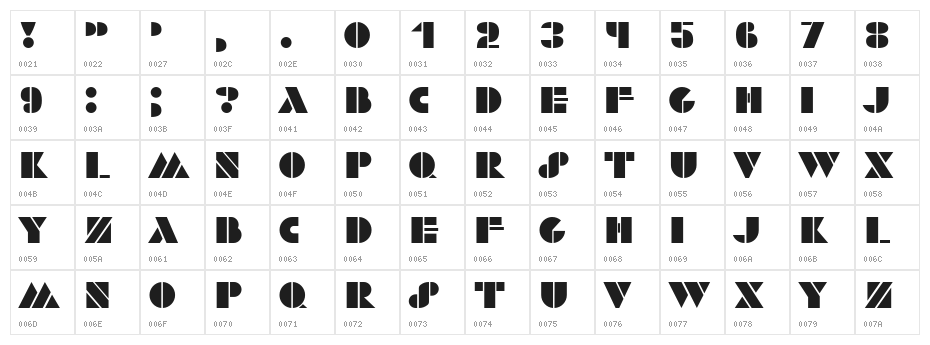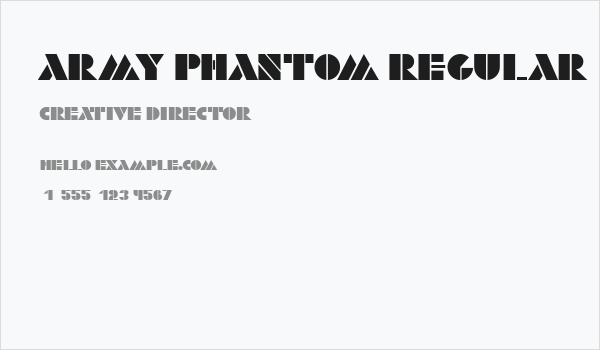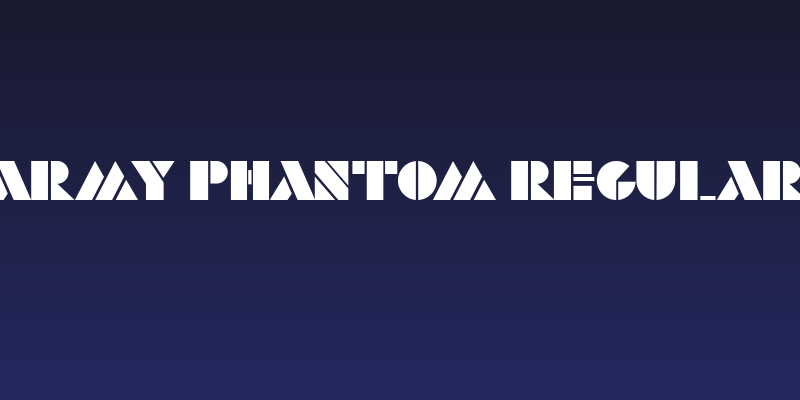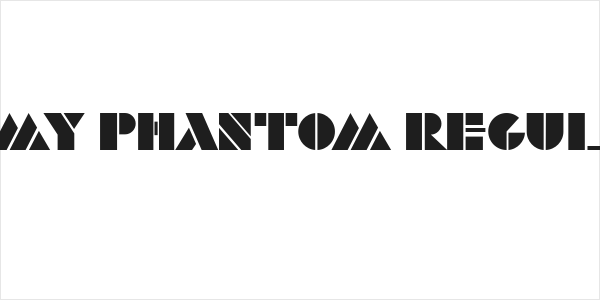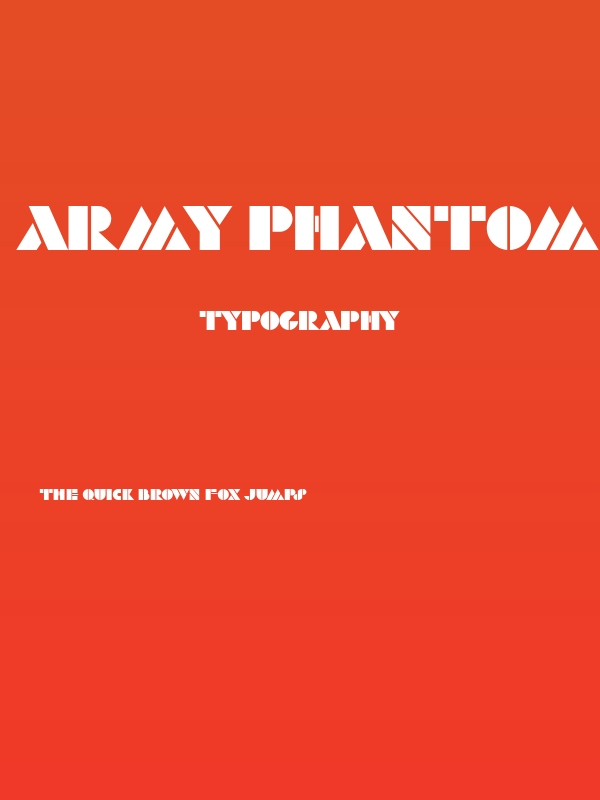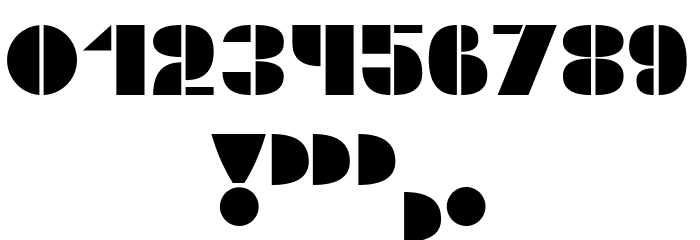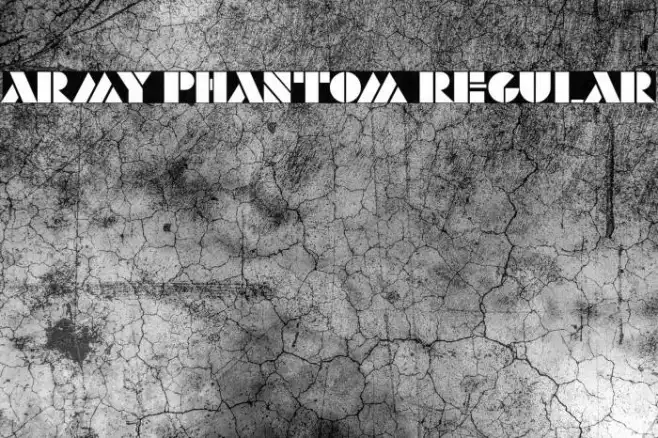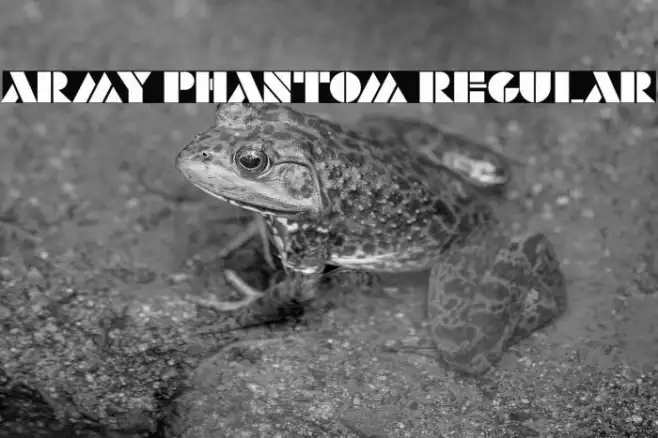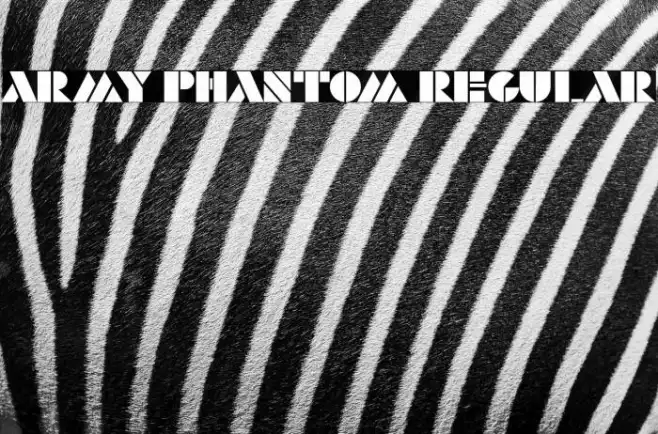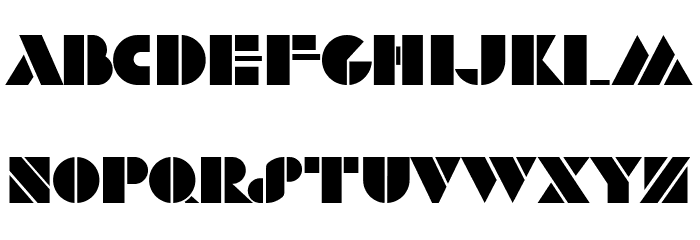
Army Phantom Regular Font
Army Phantom Regular Description
This font features a bold, geometric design with a distinct stencil-like appearance. Each character is composed of solid, angular shapes that create a sense of strength and modernity. The uppercase letters are particularly striking, with sharp edges and a uniform height that gives them a cohesive look. The numbers and special characters maintain this bold aesthetic, ensuring consistency across all elements. The font's unique style makes it ideal for projects that require a strong visual impact.
| Proposed Projects | Ideal for military-themed designs, posters, branding, and any project needing a strong, bold statement. |